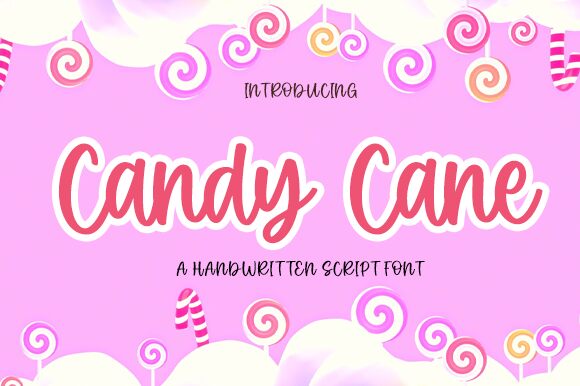
Candy Cane
Candy Cane, by Graphix Line Studio, is a handwritten font that exudes charm and personality. With its fluid, flowing lines and playful character, this font has the unique ability to add a personal touch to any project. Its aesthetic appeal lies in the balance between casual elegance and whimsical flair, making it an excellent choice for invitations, greeting cards, branding materials, and more.
The style of Candy Cane speaks to a modern sensibility with a nod to the artisanal craftsmanship of traditional handwriting. It's this blend of contemporary design with classic handwriting that gives Candy Cane its versatility. Whether you're aiming for a festive look or simply want to inject some warmth into your designs, Candy Cane's stylish curves and easy legibility will meet your creative needs with grace and vivacity.